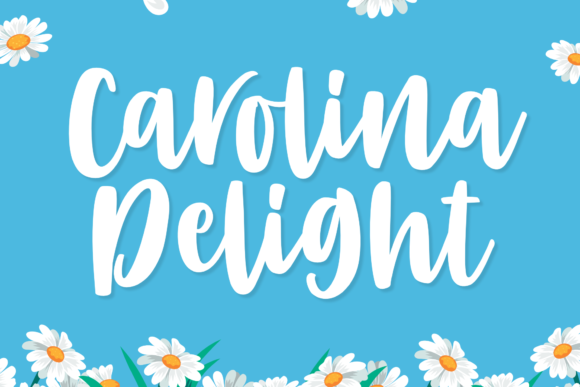
The Delightful World of Carolina Delight Font
I still remember the time I was working on a whimsical branding project for a children’s party planning service. I had all the design elements in place – the color palette, illustrations, and layout – but something was missing. The project just didn’t have that extra oomph! That’s when I stumbled upon the Carolina Delight Font. Its charming, playful characters seemed to dance along the baseline, and I knew I had found the perfect fit. In this article, I’ll share my experience with this lovely script font, its features, and how to make the most of it in your designs.
An Honest Review of Carolina Delight Font
- ✨ Playful and charming characters that add a touch of whimsy to any design
- ✅ Easy to read and understand, even at smaller font sizes
- 🎉 Perfect for creative projects, such as party invitations, branding, and social media graphics
While Carolina Delight Font is an excellent choice for many projects, there are a few things to keep in mind:
- 🤔 May not be suitable for formal or corporate designs, as its playful nature might not align with the tone you’re trying to convey
- ⚠️ Some characters may require manual kerning to achieve optimal spacing and readability
The Story Behind Carolina Delight Font
Carolina Delight Font was designed with the intention of creating a playful, yet elegant script font that would bring joy to designers and readers alike. The designer aimed to craft a font that would be perfect for creative projects, such as party invitations, social media graphics, and branding. With its charming characters and easy-to-read design, Carolina Delight Font has become a popular choice among designers and crafters.
Q: What type of projects is Carolina Delight Font best suited for?
A: Carolina Delight Font is perfect for creative projects, such as party invitations, social media graphics, branding, and craft projects.
Q: Is Carolina Delight Font easy to read?
A: Yes, Carolina Delight Font is designed to be easy to read, even at smaller font sizes.